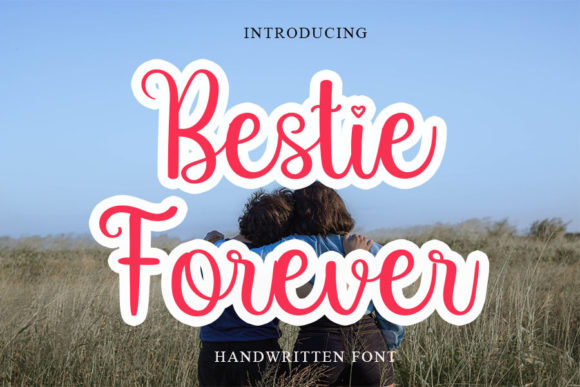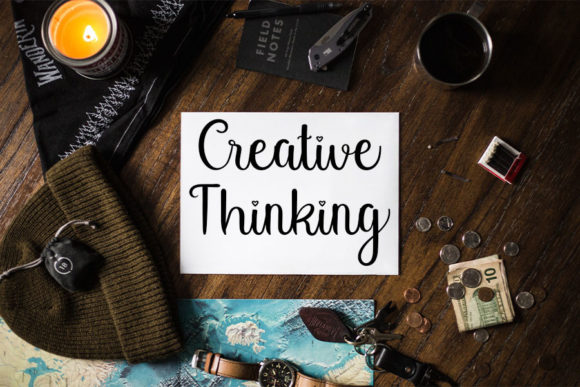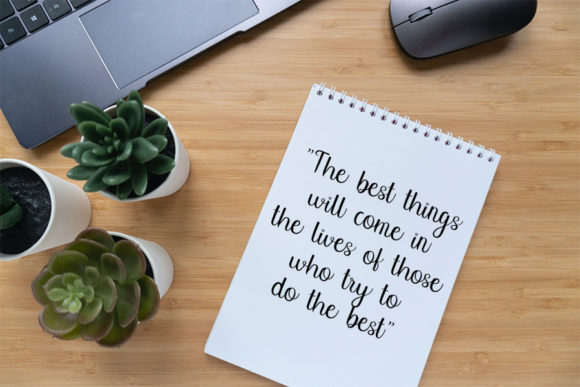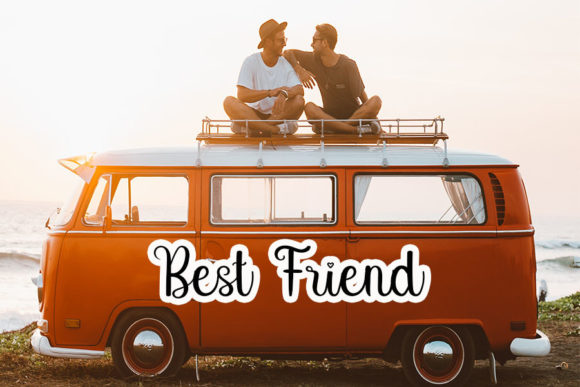
About Bestie Forever Font
Bestie Forever is a slim and delicate handwritten font. Dainty and joyful, this font will be ideal for writing wedding invitations, cards, or any other design that may need a romantic, personalized touch!